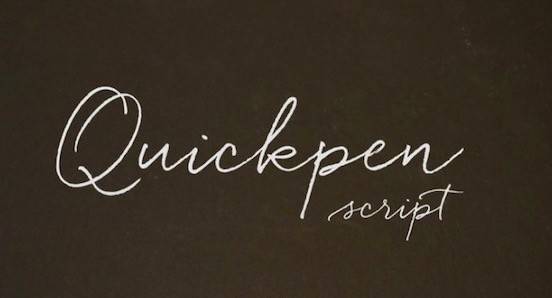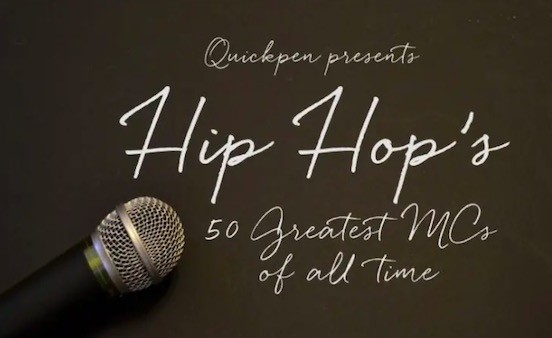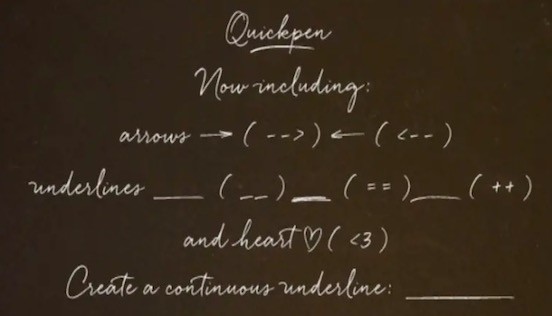
Quickpen font is a modern and unique typeface which was designed by Laura Condouris and was published by Trial by Cupcakes on 4 April 2014. Laura Condouris is a famous type designer from the USA. With many unique characteristics, high-grade legibility, and keen features, this font is getting too much popularity in no time.
Quickpen script font is an exquisite handwritten font, masterfully created to become a true art product. Quickpen font maintains its classy handwritten influences while feeling cool and modern. This font has well-balanced and beautiful characters. Quickpen font matches a range of designs and makes your designs come alive
Unlike Crimson Foam Font, it has supported approximately 25 international languages such as English, Danish, Dutch, Czech. So, this font will become a part of your premium product. Let’s have a look at the images below, you will better understand the font. All the characters along with numerals have designed with full enthusiasm and concentration.